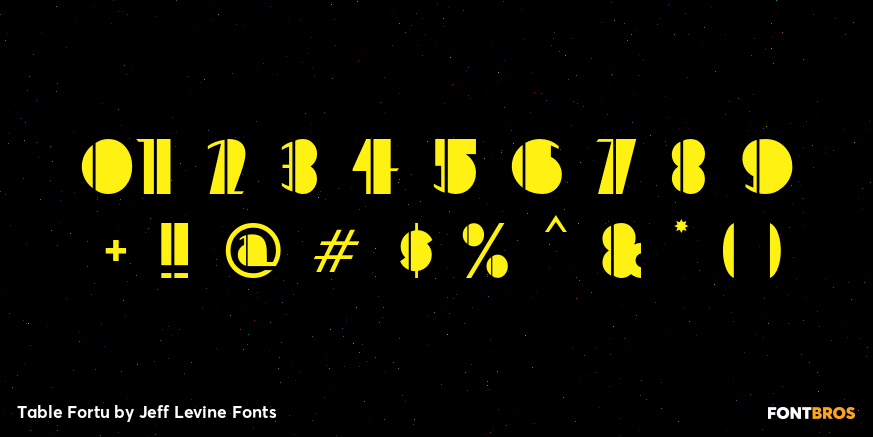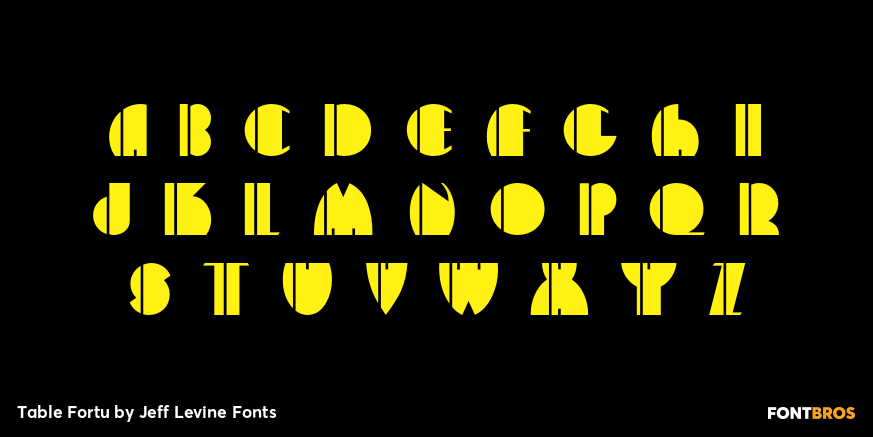
Table Fortu
Table Fortu JNL is a revival of an Art Deco font that has all the classic nuances of the period. Re-drawn from scratch by Jeff Levine, it contains additional characters and accents not found in the original.
Table Fortu JNL Regular by Jeff Levine Fonts